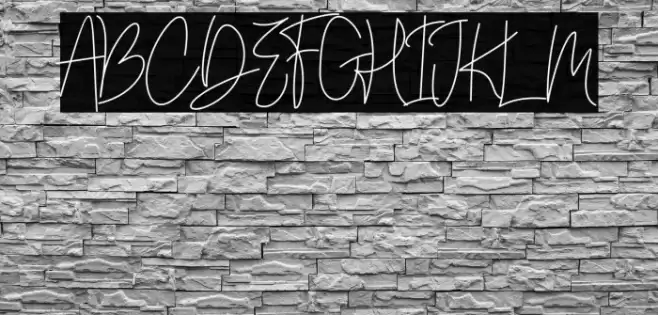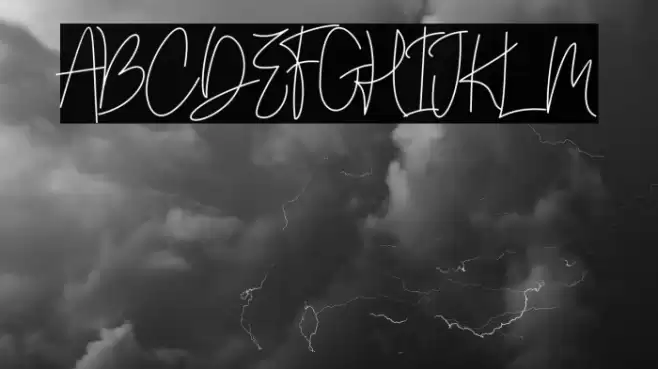
Andi Signature Font
Andi Signature Description
This font exudes a casual and elegant handwritten style, characterized by its flowing and interconnected letterforms. The uppercase letters are tall and slender, with a slight slant that adds a dynamic feel. The lowercase letters maintain a consistent flow, enhancing the script-like appearance. Numbers and special characters are designed to match the overall aesthetic, ensuring a cohesive look across all text. The strokes are thin and delicate, giving the font a light and airy feel. This style is perfect for adding a personal touch to any design, making it ideal for creative projects that require a sense of individuality and flair.
A casual, elegant handwritten font with flowing, interconnected letterforms from Uncategorized fonts.
- Font: Andi Signature
- Proposed Projects: Ideal for wedding invitations, personal branding, social media graphics, and creative projects requiring a personal touch.
- Weight: Light
- Overall Style: Casual, Elegant
- Use Case: Logos, Invitations, Social media graphics